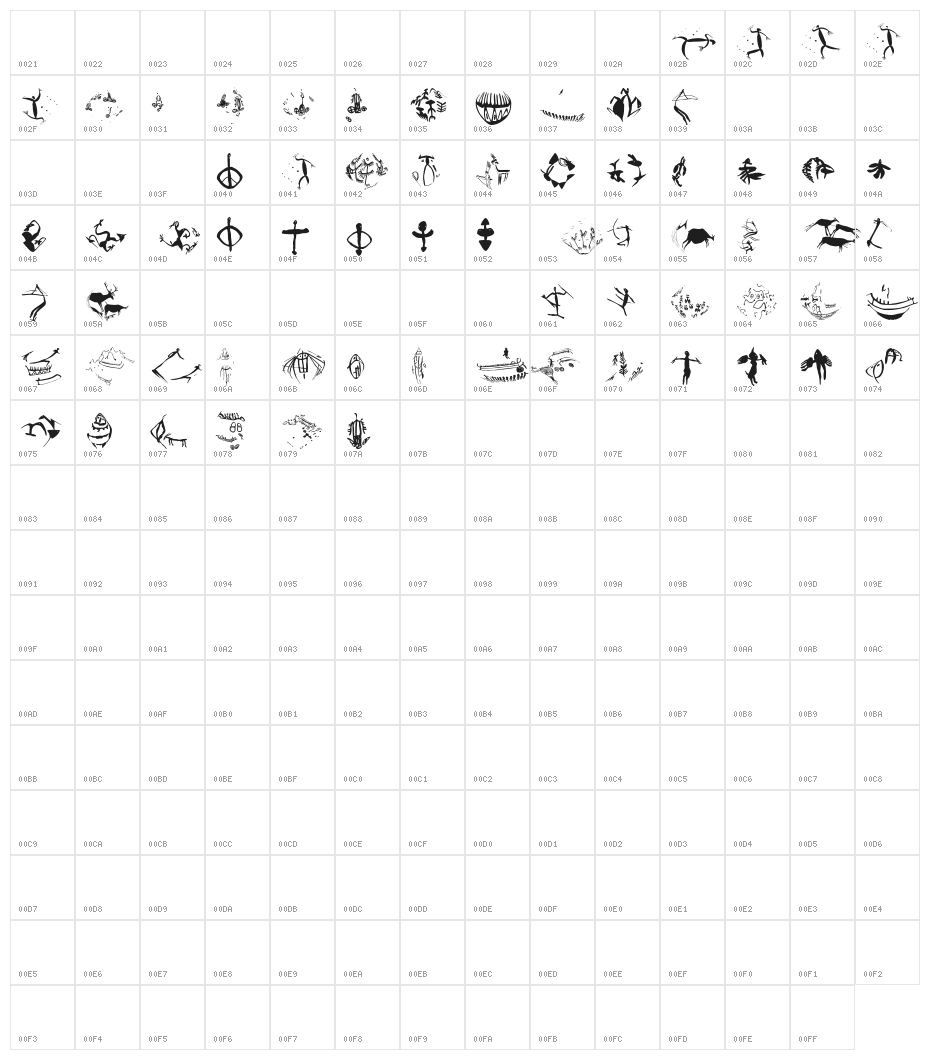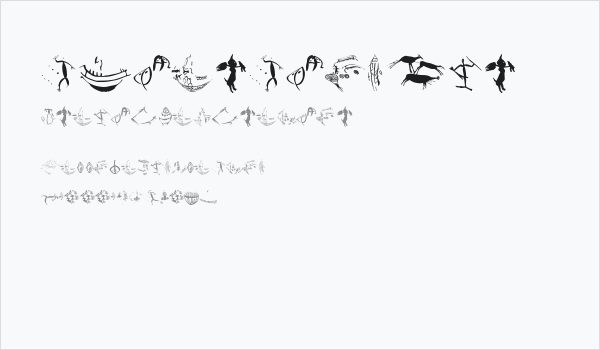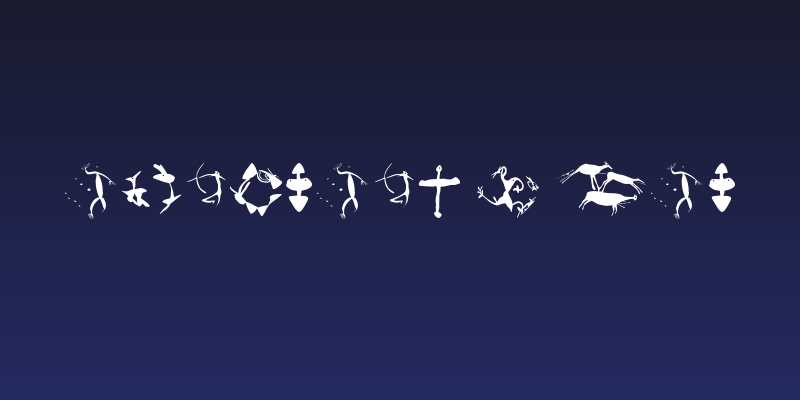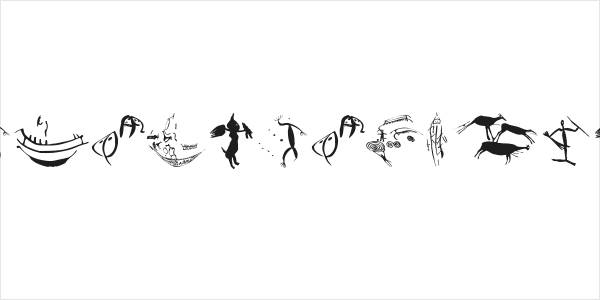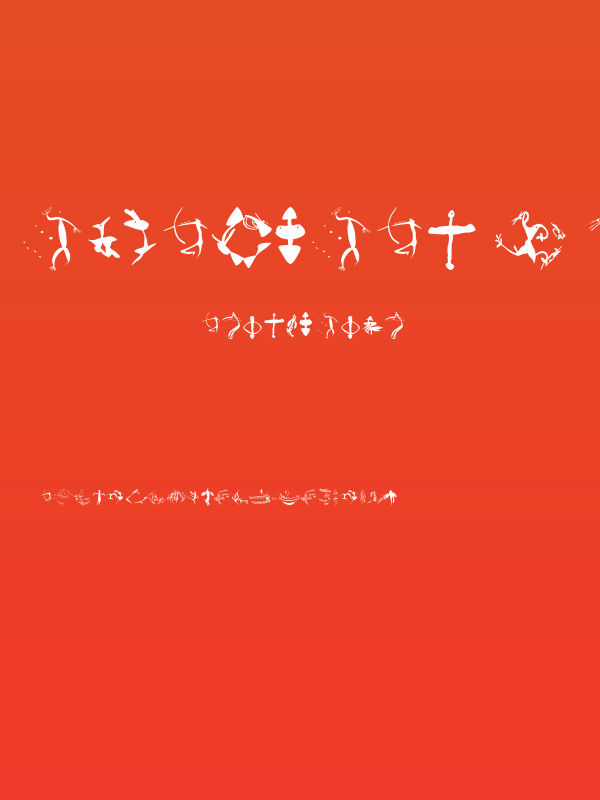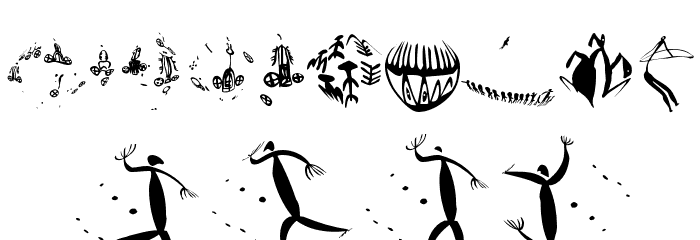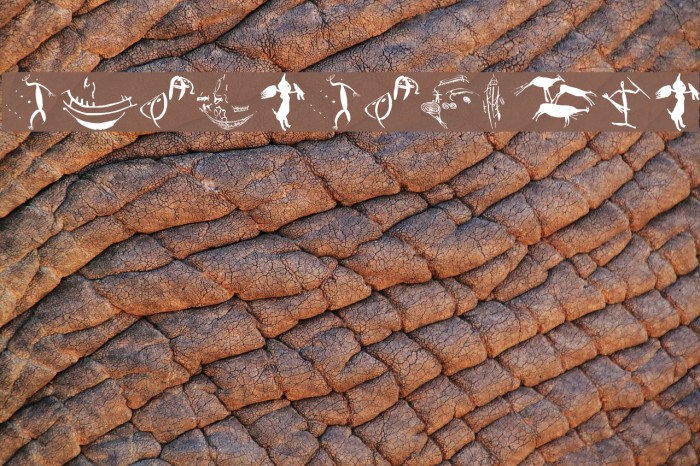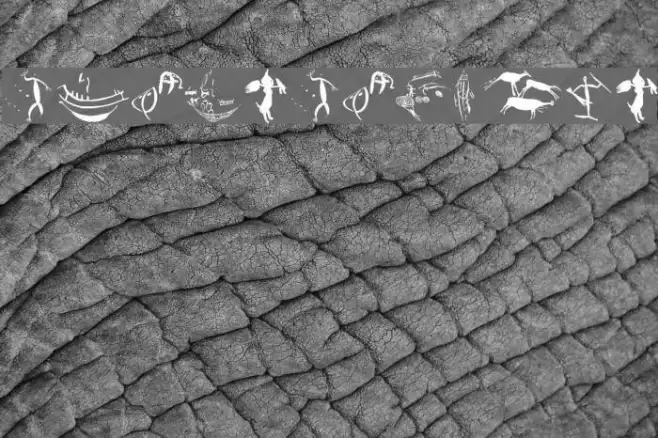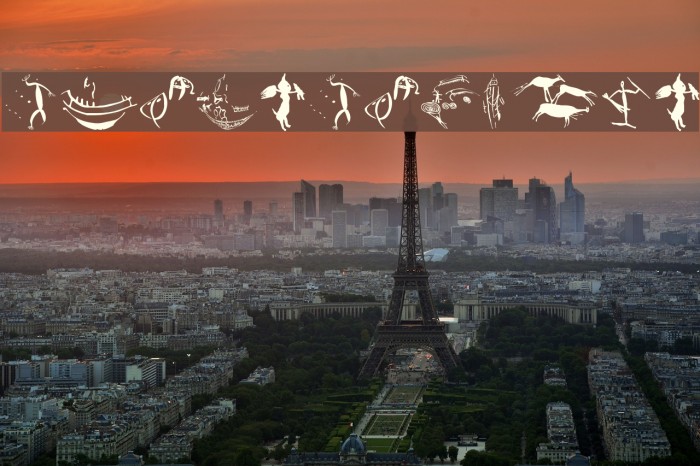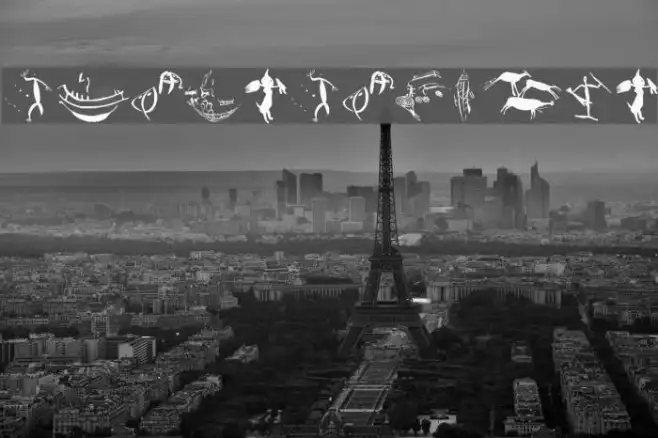
AfterAtomWar Font
| Stile generale | Primitive, Artistic, Historical |
| Caso d'uso | Artistic projects, Branding, Educational materials |
| Progetti proposti | Ideal for projects that require a primitive or historical theme, such as museum exhibits, educational materials about ancient cultures, or artistic installations. It could also be used in branding for products that emphasize natural or organic qualities. |